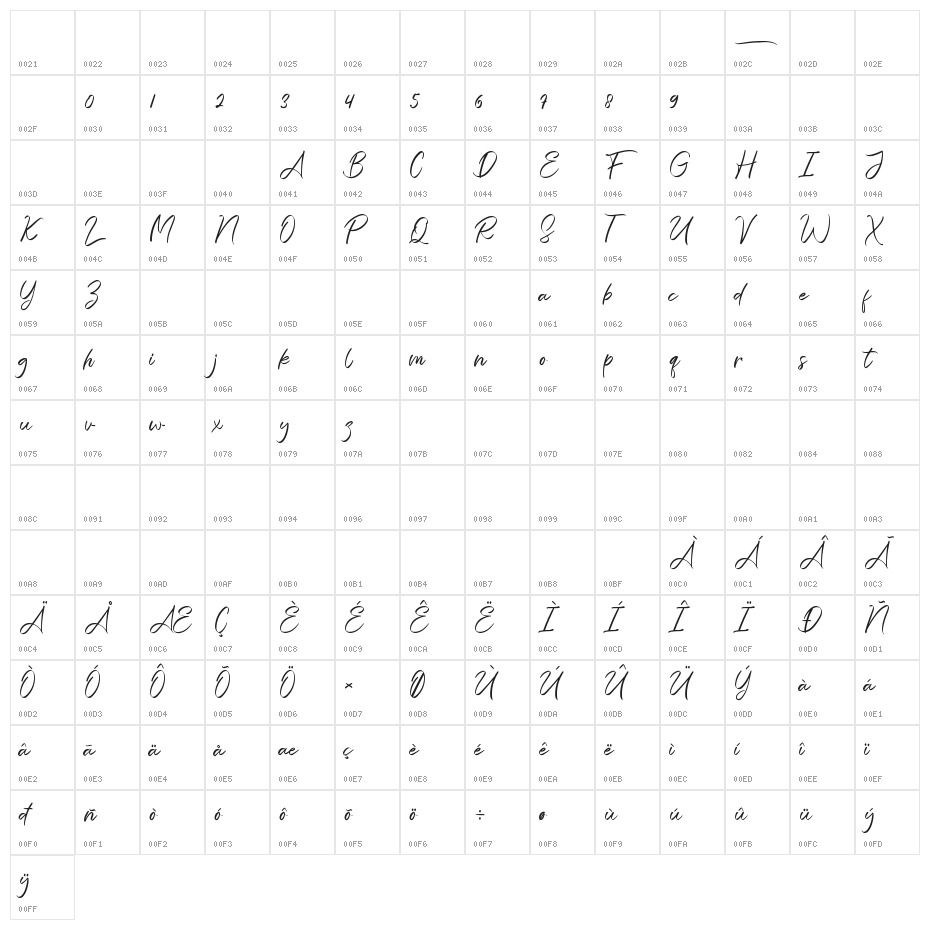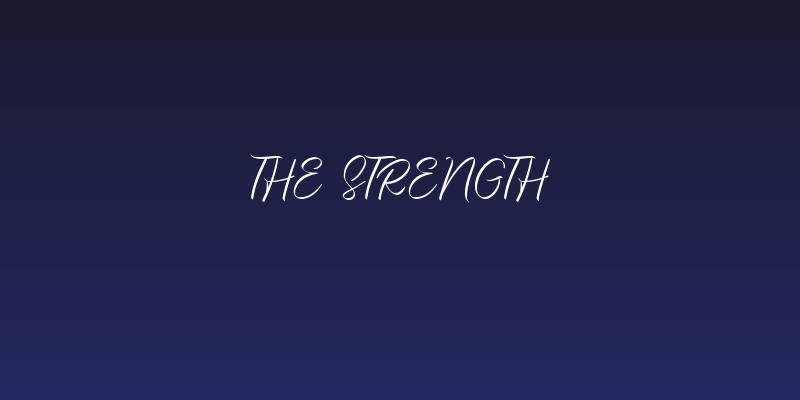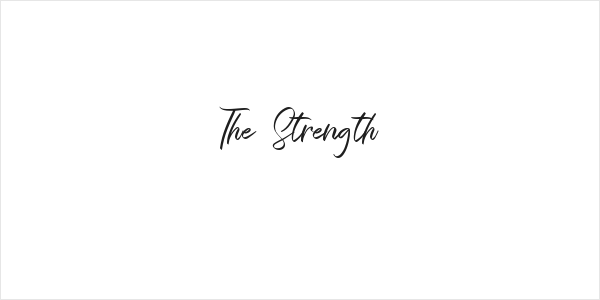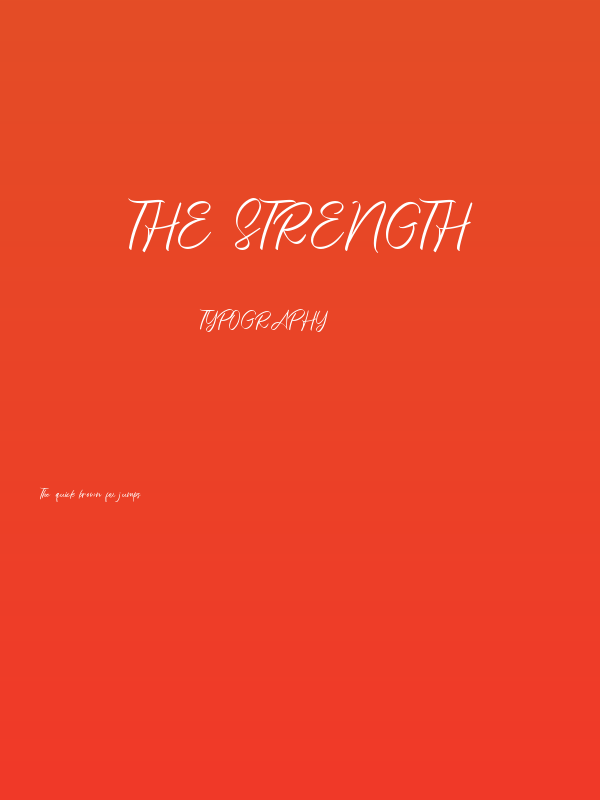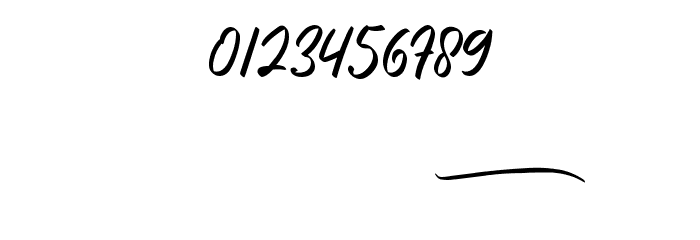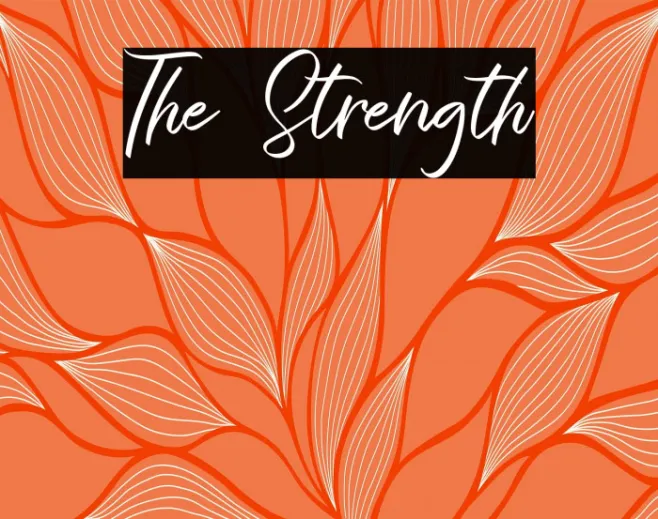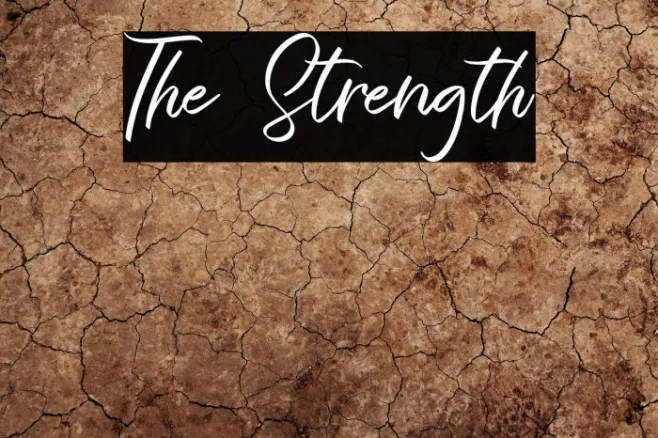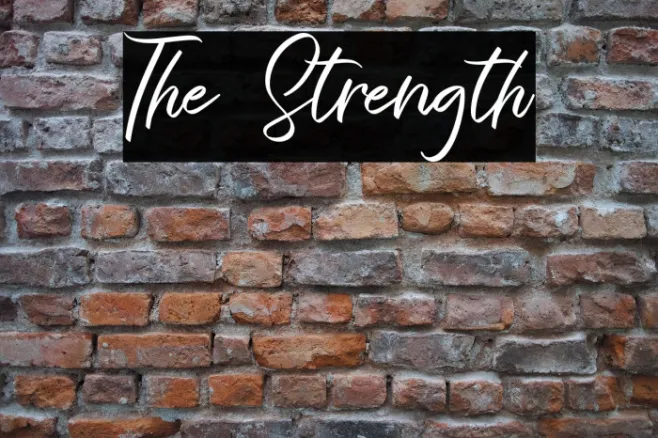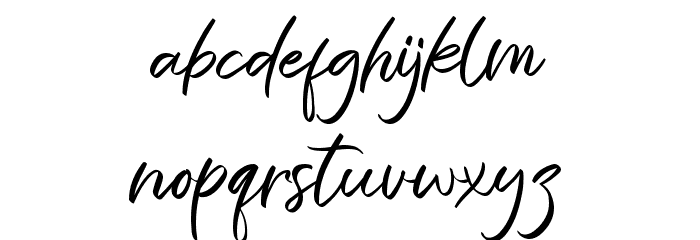
The Strength Font
The Strength Description
This font exudes a dynamic and elegant script style, characterized by its fluid, cursive strokes and a sense of movement. The uppercase letters are bold and sweeping, with a graceful flair that adds a touch of sophistication. The lowercase letters maintain a consistent flow, with smooth connections and a slightly more relaxed form. The numerals are clear and legible, matching the overall aesthetic with their rounded and flowing design. The special characters blend seamlessly with the alphabet, maintaining the same elegant script style. This font is perfect for adding a personal and artistic touch to any design project.